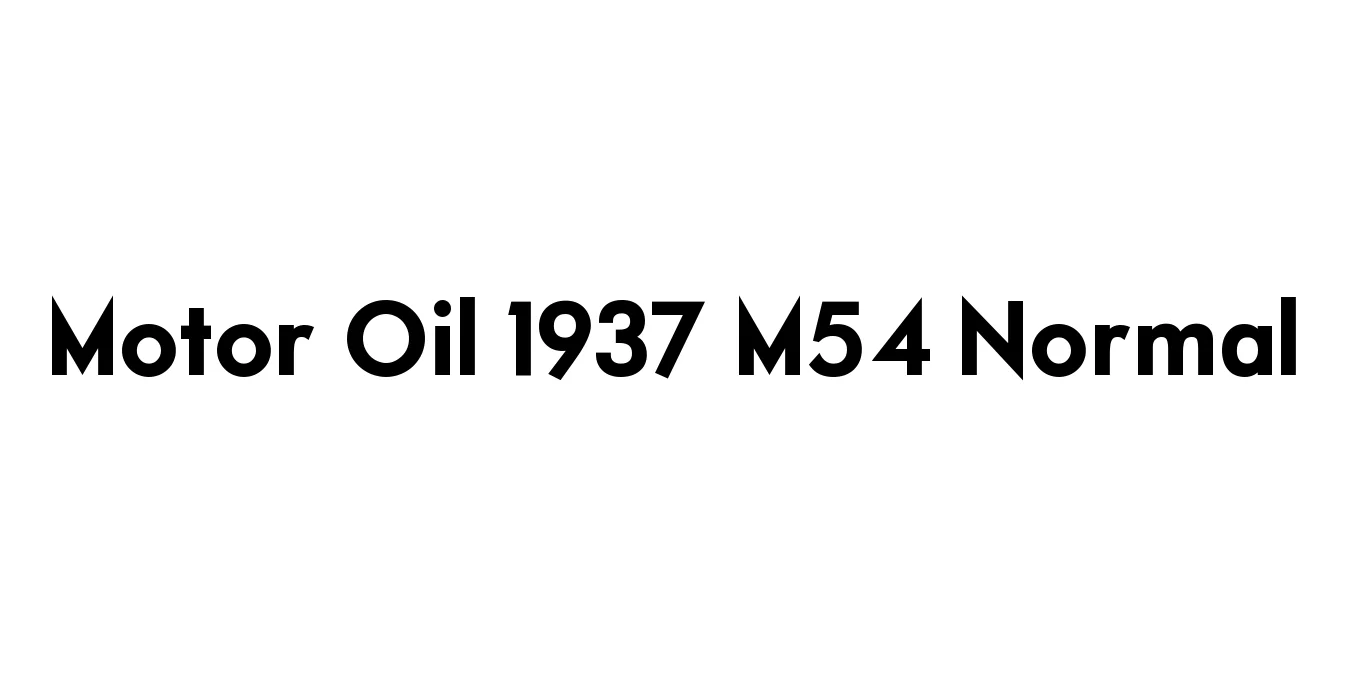
Motor Oil 1937 M54 Normal
Designed by Mohammed Rahman (M54)
| Category | Display / Sans Serif |
| Designer | Mohammed Rahman (M54) |
Motor Oil 1937 M54 Normal is a specialized display typeface that captures the rugged, utilitarian spirit of the mid-20th century industrial era. Developed by the designer M54, this font is deeply inspired by the vintage typography found on automotive lubricant containers, garage signage, and mechanical equipment from the late 1930s. Its heavy, blocky architecture is designed to project strength, reliability, and a sense of blue-collar craftsmanship.
The font features geometric construction with thick, uniform strokes that ensure high visibility and legibility from a distance. While it carries a distinct nostalgia for the pre-war industrial boom, its clean lines allow it to function effectively in modern graphic design environments. It serves as an excellent choice for designers aiming to create a heritage-inspired aesthetic without sacrificing the impact of contemporary display fonts.
Motor Oil 1937 M54 Normal Best Uses
Ideal for automotive shops, restoration businesses, and masculine branding projects.
Perfect for large-format event posters, specifically for car shows or industrial expos.
Excellent for t-shirt graphics and streetwear that requires a bold, retro look.
High-impact choice for website headers and magazine titles seeking a vintage vibe.